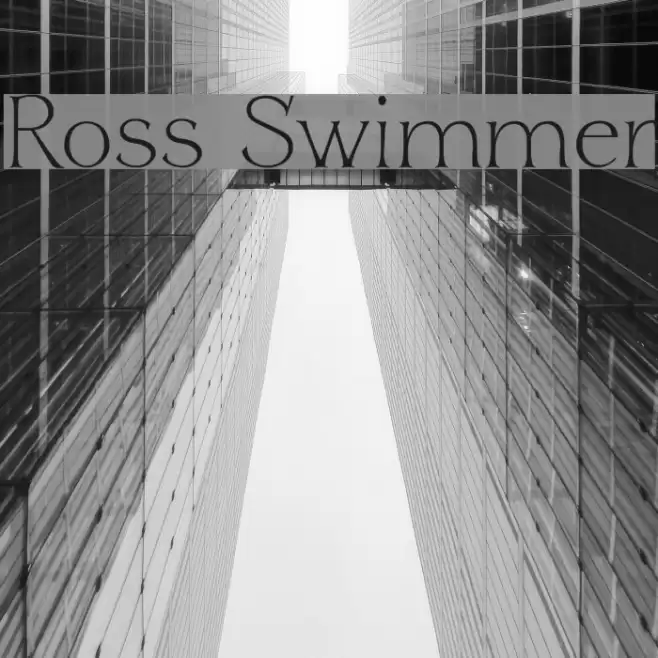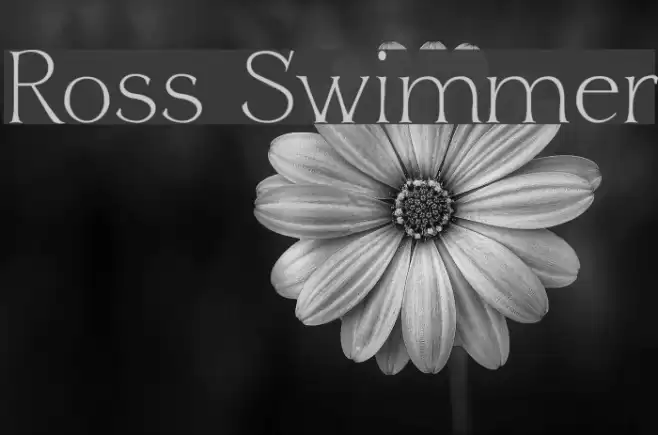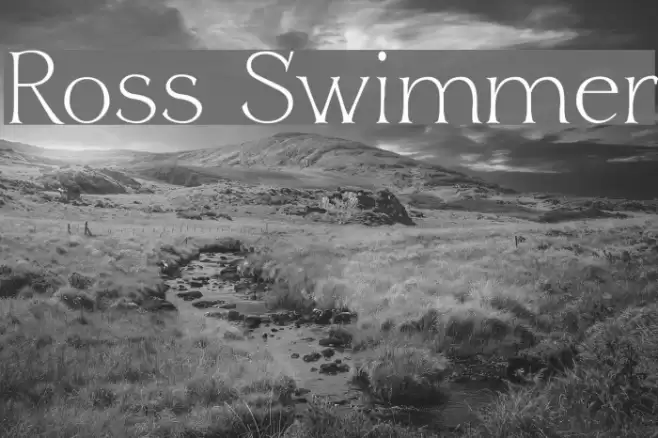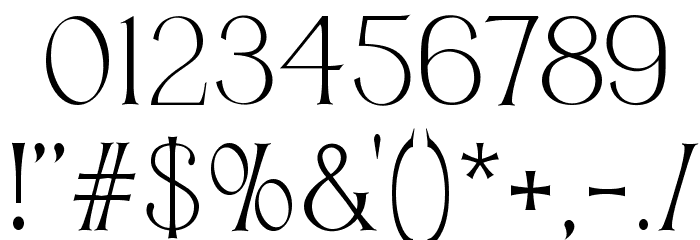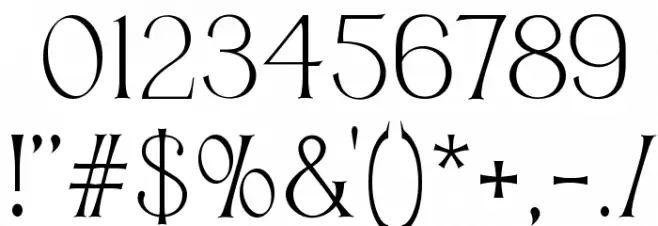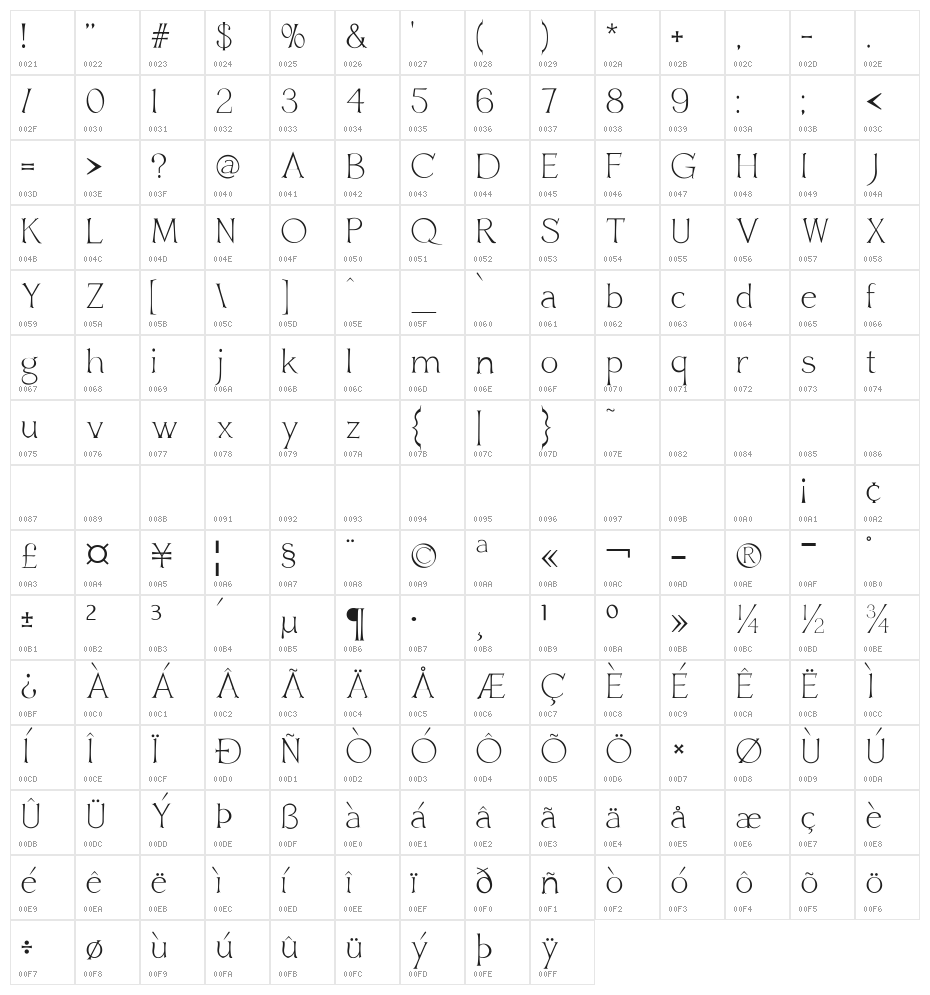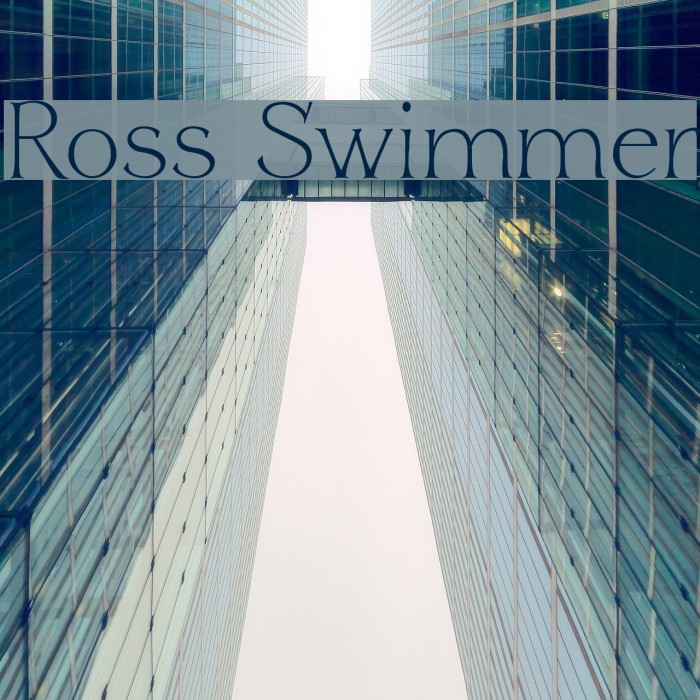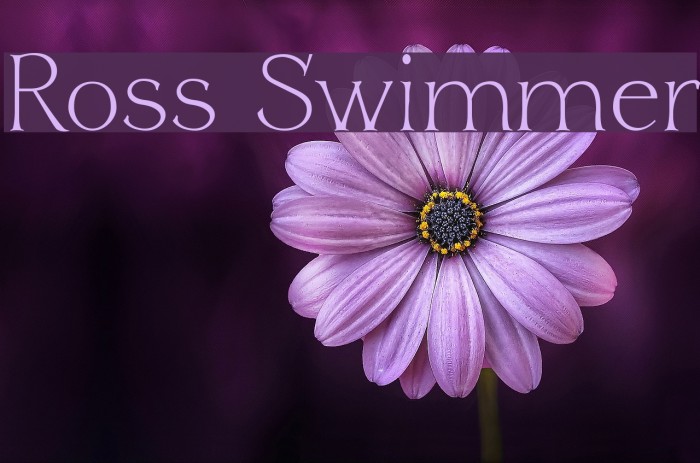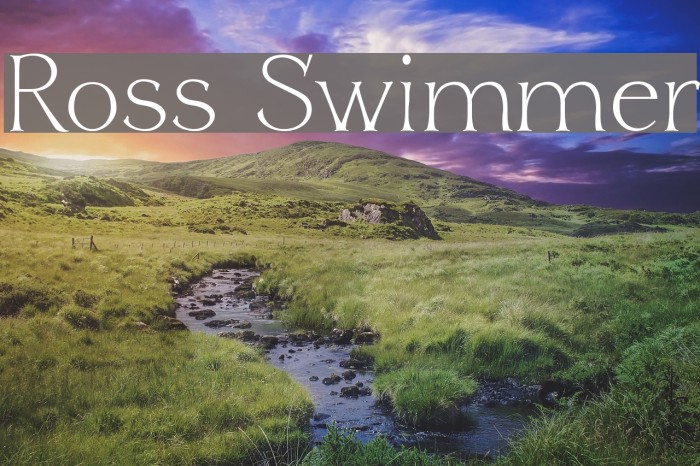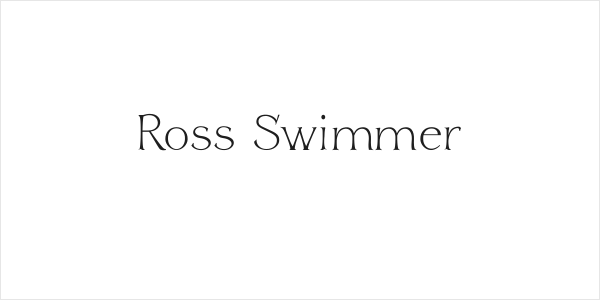
Ross Swimmer Font
Ross Swimmer Description
This font exhibits a classic serif style with elegant, elongated strokes and subtle curves. The uppercase letters are tall and slender, giving a sense of sophistication and formality. The lowercase letters maintain a consistent style, with smooth transitions and a slightly narrower appearance. The numerals are well-proportioned, aligning seamlessly with the overall aesthetic. Special characters are designed with the same attention to detail, ensuring a cohesive look across all glyphs. The font's design is both timeless and versatile, suitable for a variety of applications where elegance and readability are paramount.
A classic serif font with elegant, elongated strokes and subtle curves from Uncategorized fonts.
- Proposed Projects: Ideal for use in formal invitations, editorial design, book covers, and branding materials where a touch of elegance is desired.
- Overall Style: Classic